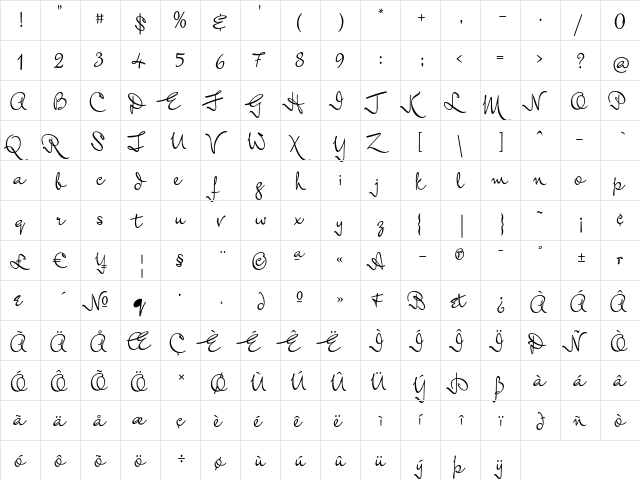
Mr Keningbeck Regular Font Preview
Mr Keningbeck Regular
Mr Keningbeck Regular Font Details
Design Context for Mr Keningbeck Typeface
Mr Keningbeck is a composed and adaptable typeface that performs quietly and consistently across a wide range of design contexts.